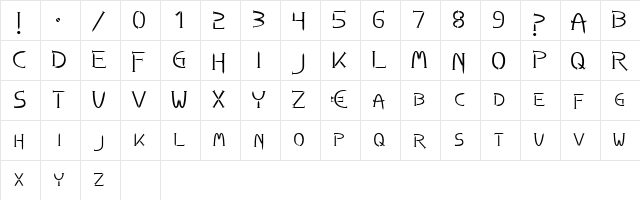
Nails Regular Free Font
Nails Regular
Design Context for Nails
Nails is a composed and adaptable typeface that performs quietly and consistently across a wide range of design contexts.
Pro Tip: Use Nails in both headline and body roles to test its range before committing to a single application.